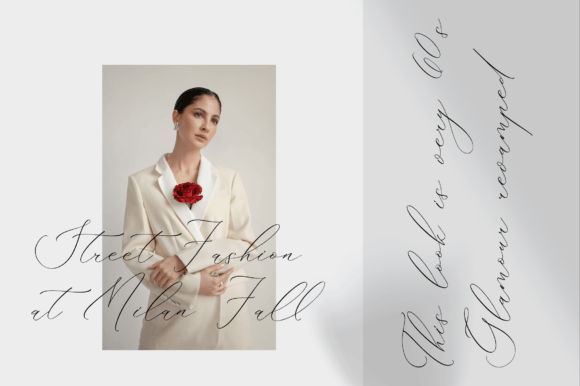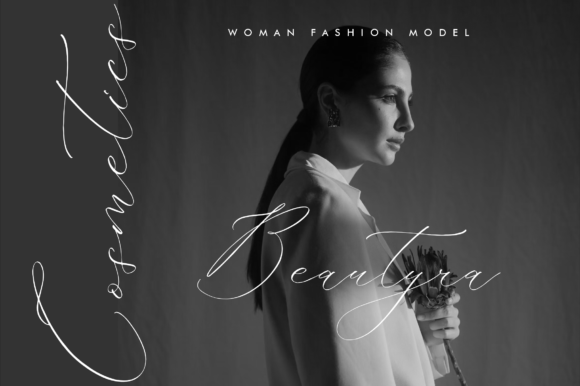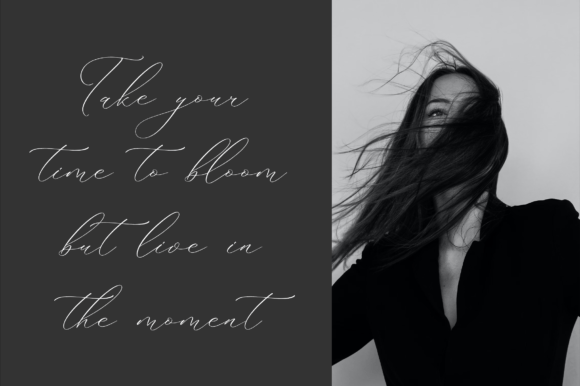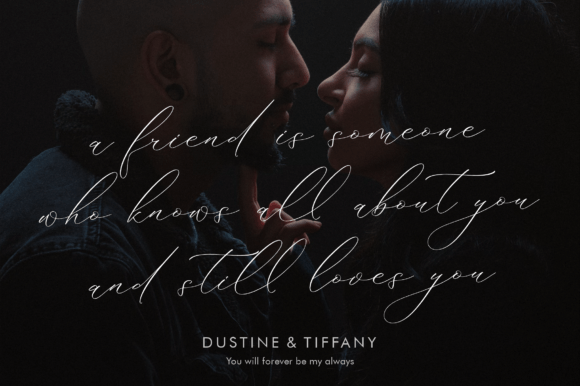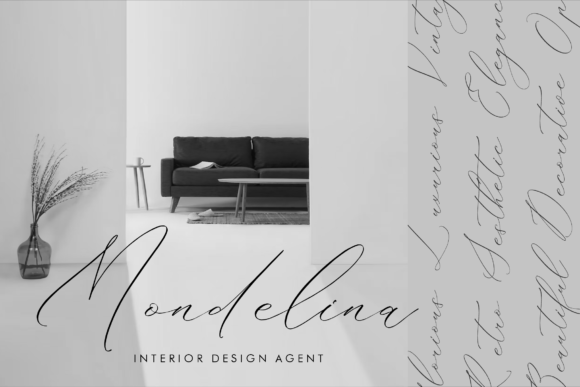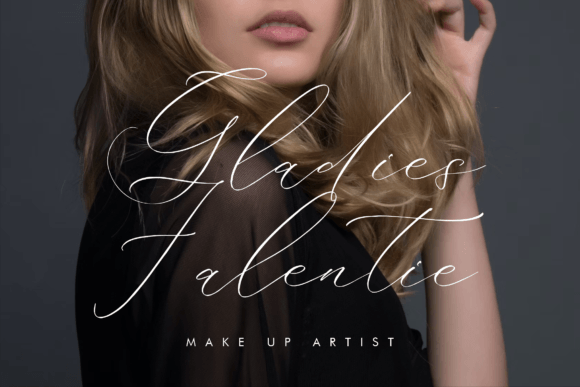
Introduction to Delistian Valentine Font
Delistian Valentine Font is a charming and romantic script and handwritten typeface.
With its delicate strokes and lovingly crafted curves, it adds an enchanting touch to Valentine’s Day cards, wedding invitations, and any project seeking to express heartfelt emotions with elegance and grace .
Key Features of Delistian Valentine Font
Why Choose Delistian Valentine Font?